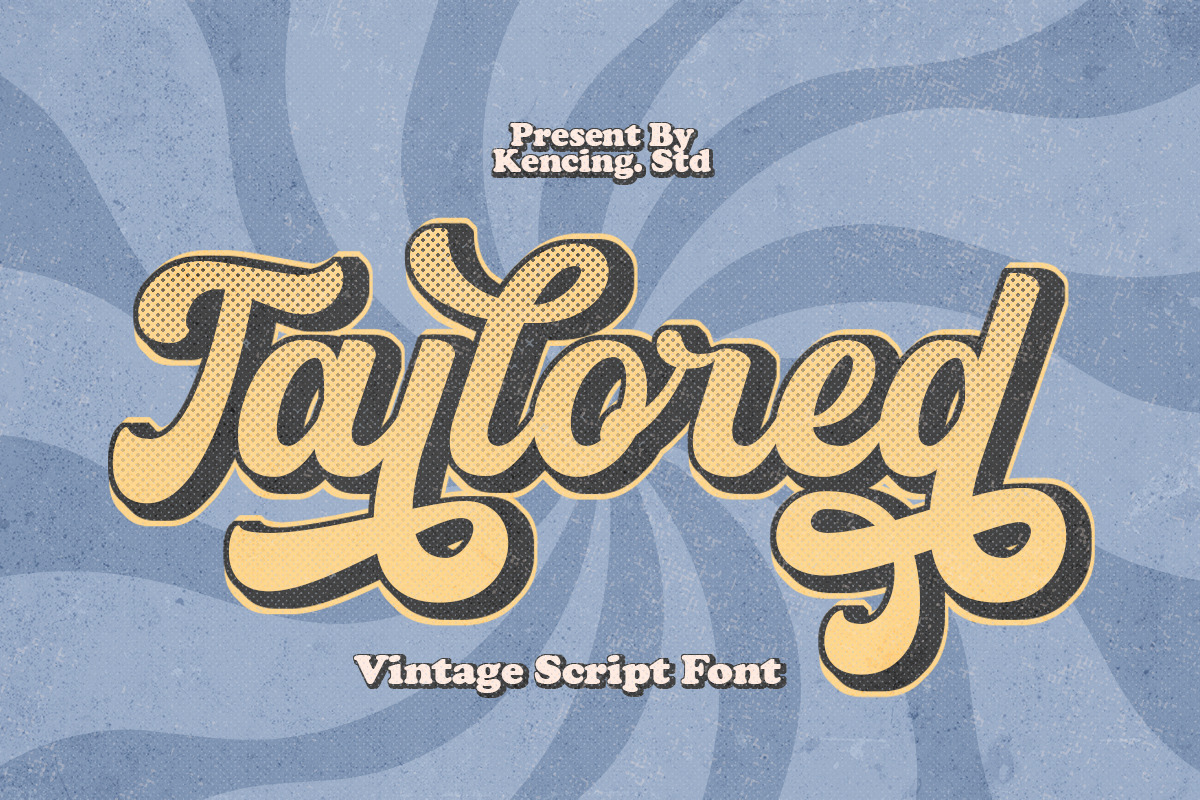
Taylored - Vintage Script Font
Taylored, a Bold script font with a charming touch of Retro style! It’curvy retro shape makes it more unique and attractive. Taylored is very ideal for variety design projects, such as posters, Invitations, greeting cards, logo, and many more. Taylored will jolly up you and your audiences! Get this font now to magnify your design!